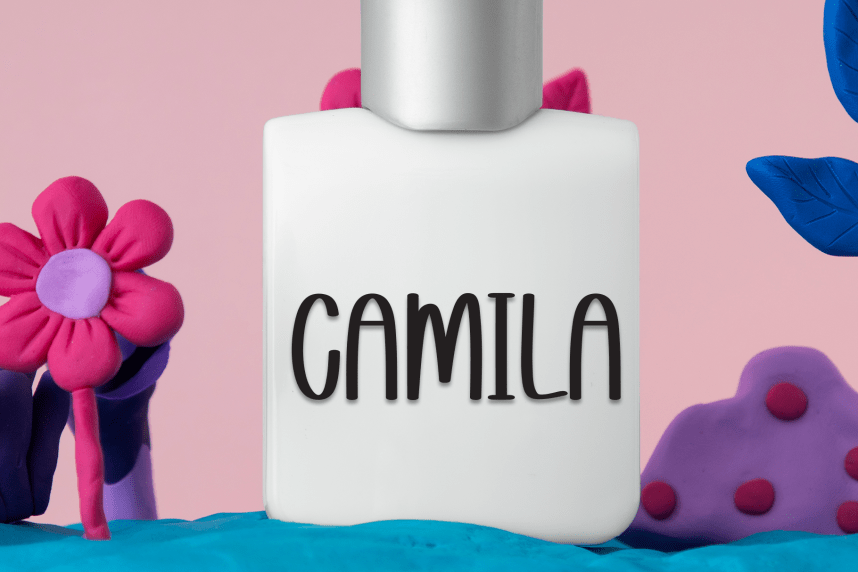
Beach Adventure – Creative Style Font
Beach Adventure – Creative Style Font is a sweet and friendly handwritten display font. Cute and fun, this font is ideal for writing wedding invitations, cards, or any other design that might need a playful touch!